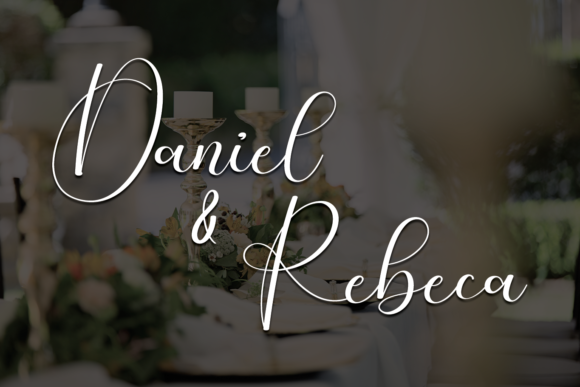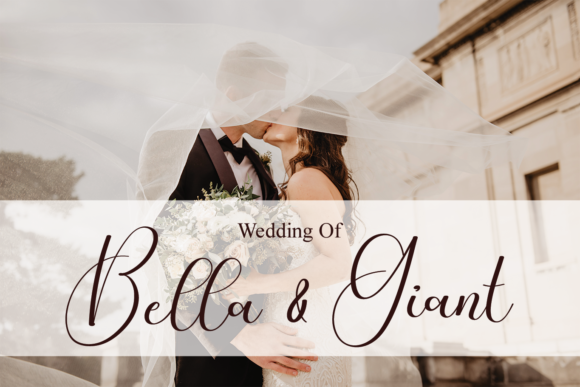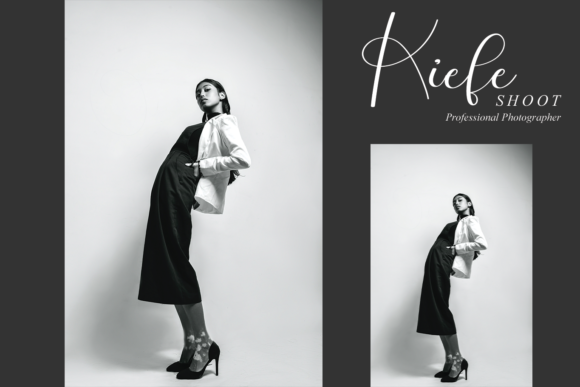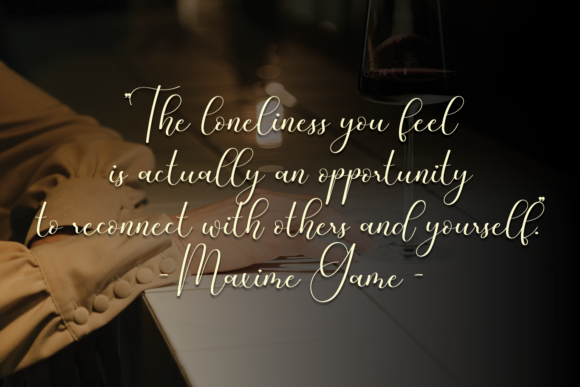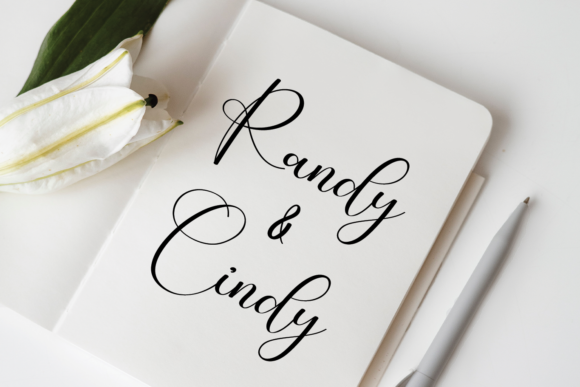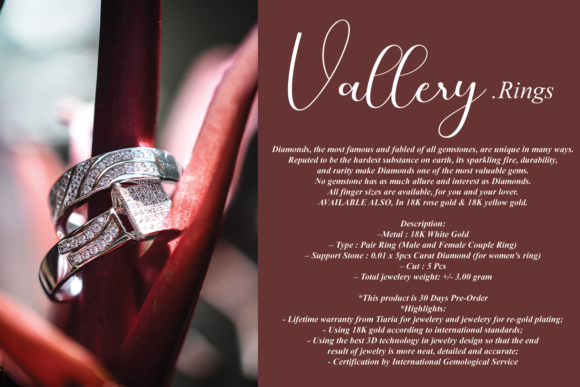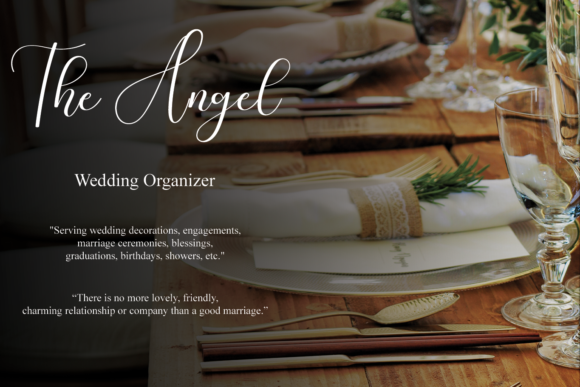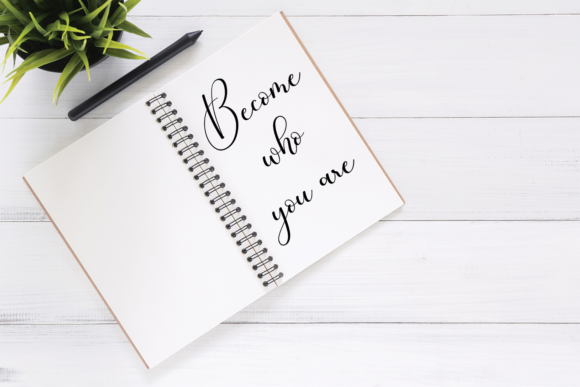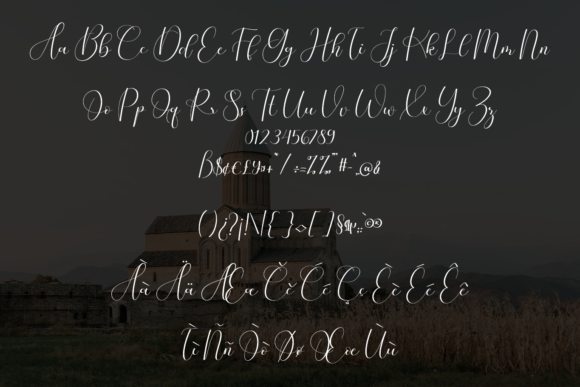
Best Friend Font
About Best Friend Font
Best Friend is a beautiful and refined script font that embodies a classy, elegant, and modern aesthetic. With its sophisticated appearance, this font is a versatile choice suitable for various design applications such as logos, branding, invitations, stationery, wedding designs, social media posts, and much more.
The font’s refinement is evident in its carefully crafted characters, each exuding a sense of elegance and style. The modern look of Best Friend makes it a timeless and chic option for projects where a touch of sophistication is desired.
For logos and branding, Best Friend becomes a valuable asset, imparting a classy and memorable identity to your brand. Its refined script adds a level of sophistication that can elevate the overall perception of your business or project.
Invitations and wedding designs benefit from Best Friend’s elegant aesthetic, creating a sense of grace and style. Whether used for event stationery or social media posts, the font enhances the visual appeal and sets the tone for a sophisticated celebration.
Best Friend’s versatility allows it to adapt seamlessly to various design contexts, ensuring a cohesive and modern look across different applications. Its clean lines and contemporary feel make it a reliable choice for projects that demand a refined and stylish touch.
Choose Best Friend to add a touch of beauty and modern elegance to your designs. Whether you’re crafting a logo, designing invitations, or creating social media posts, let this font be the key to achieving a classy and sophisticated aesthetic.